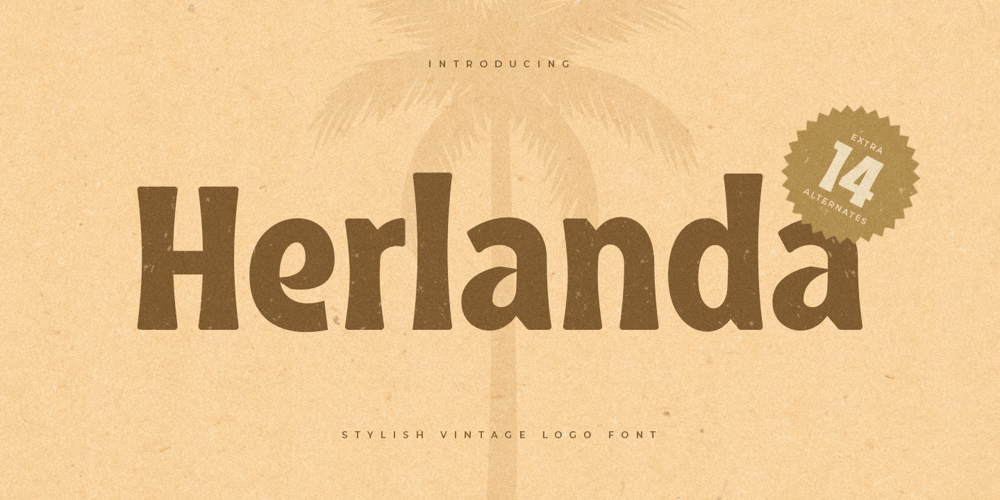
Herlanda
Herlanda font
Herlanda Font Family was designed by Zamroni Hamzah and published by Sensatype Studio. Herlanda contains 1 styles and family package options. Herlanda is Modern Vintage Logo Font is a well-balanced contemporary font with a fancy, unique, and versatile vintage serif, font that you can combine to get any variations and unique shapes easily just in seconds with choose alternates of them. It is a serif display font with moderate contrast that perfect for branding projects, l social media posts, advertisements, product packaging,and any projects, it makes with a high level of legibility.What’s Included: Character set A-Z Numerals & Punctuation Accented Characters (West Europe) Stylistic alternates Works on PC & Mac Recommended using Adobe Illustrator or Adobe Photoshop. Wish you enjoy our font. ๐Ÿ™‚